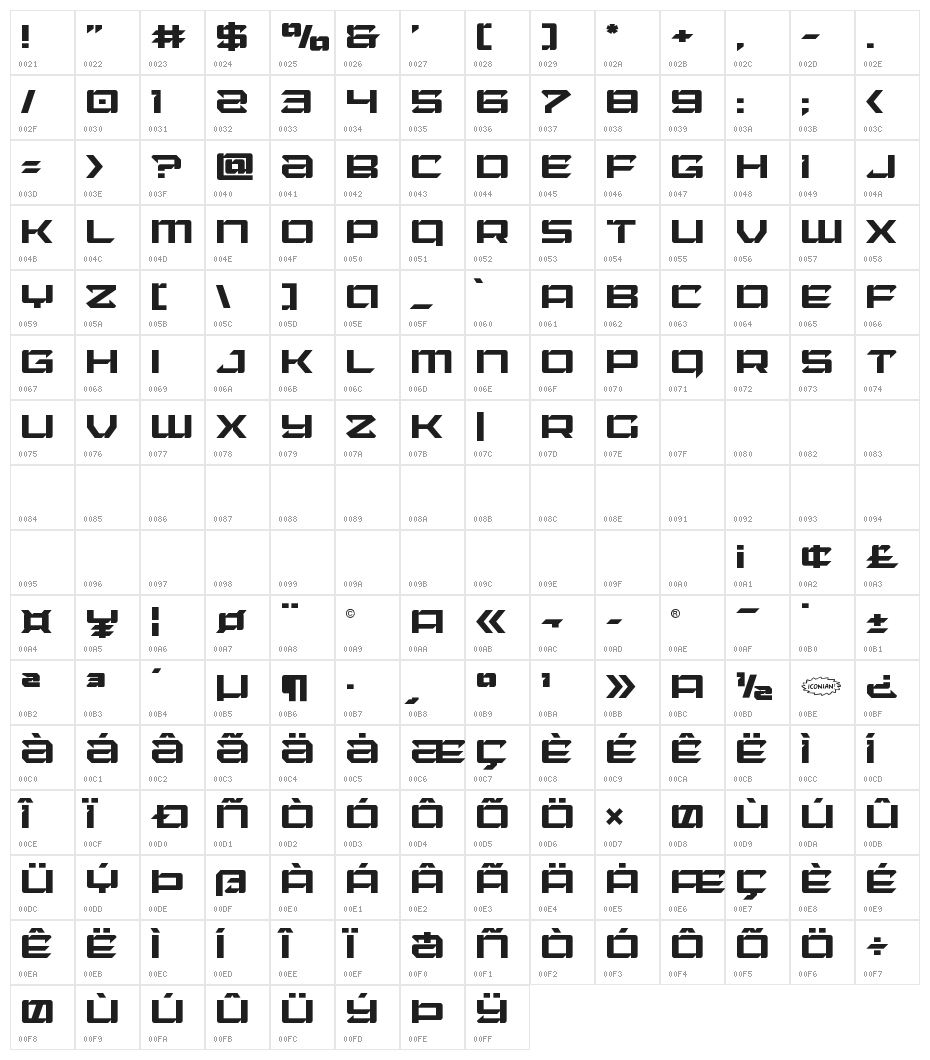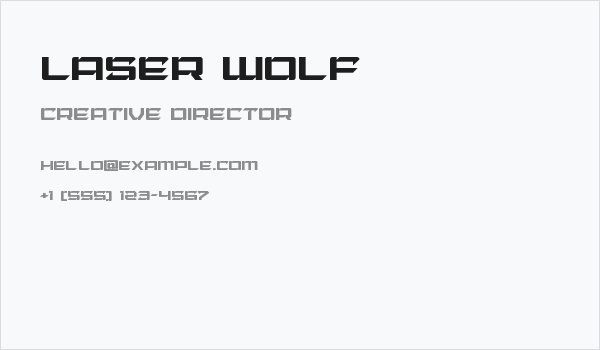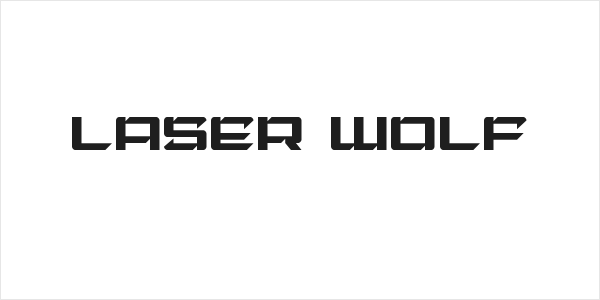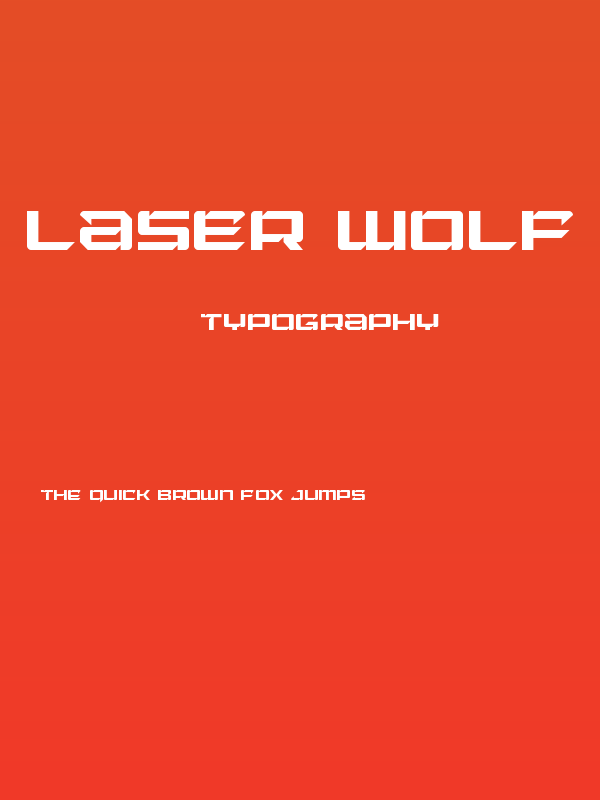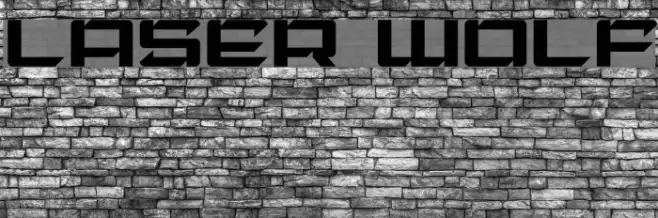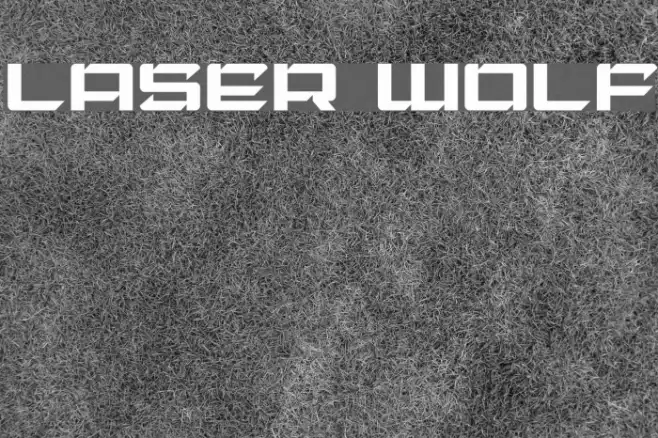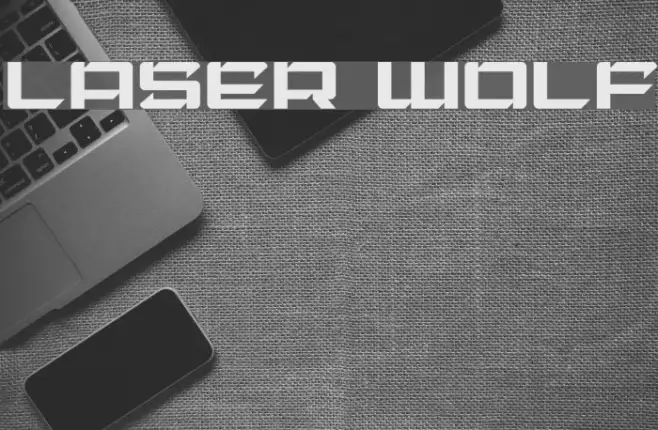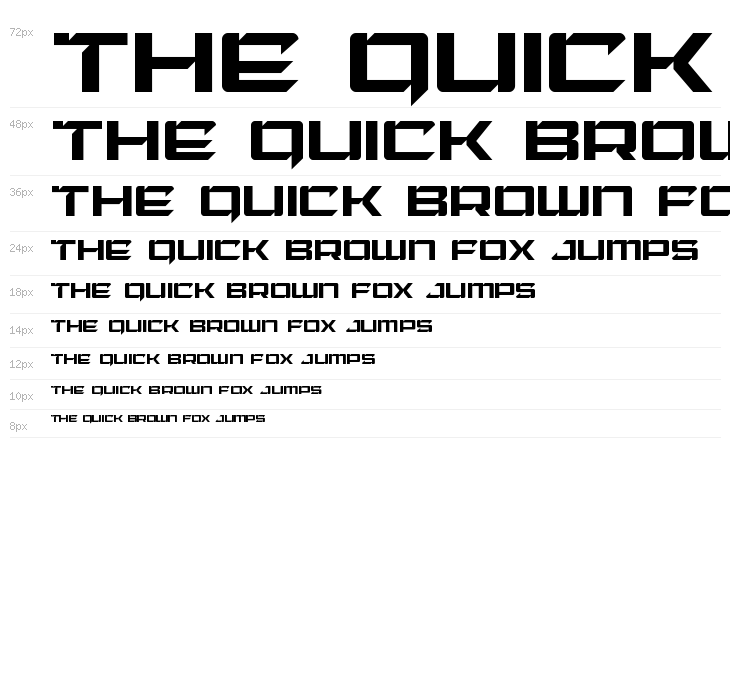
Laser Wolf Font
Laser Wolf Description
This font features a bold, futuristic design with angular, geometric shapes that create a strong visual impact. The characters are constructed with sharp edges and a consistent stroke width, giving it a mechanical and modern appearance. The uppercase and lowercase letters maintain a uniform style, with distinct cuts and angles that enhance its digital aesthetic. The numerals and special characters follow the same design principles, ensuring a cohesive look across all glyphs. This font is ideal for projects that require a tech-savvy or avant-garde feel, making it suitable for use in digital media, gaming, and technology branding.
| Use Case | Logos, Headlines, Digital Media |
| Proposed Projects | Ideal for digital media, gaming interfaces, technology branding, and futuristic design projects. |